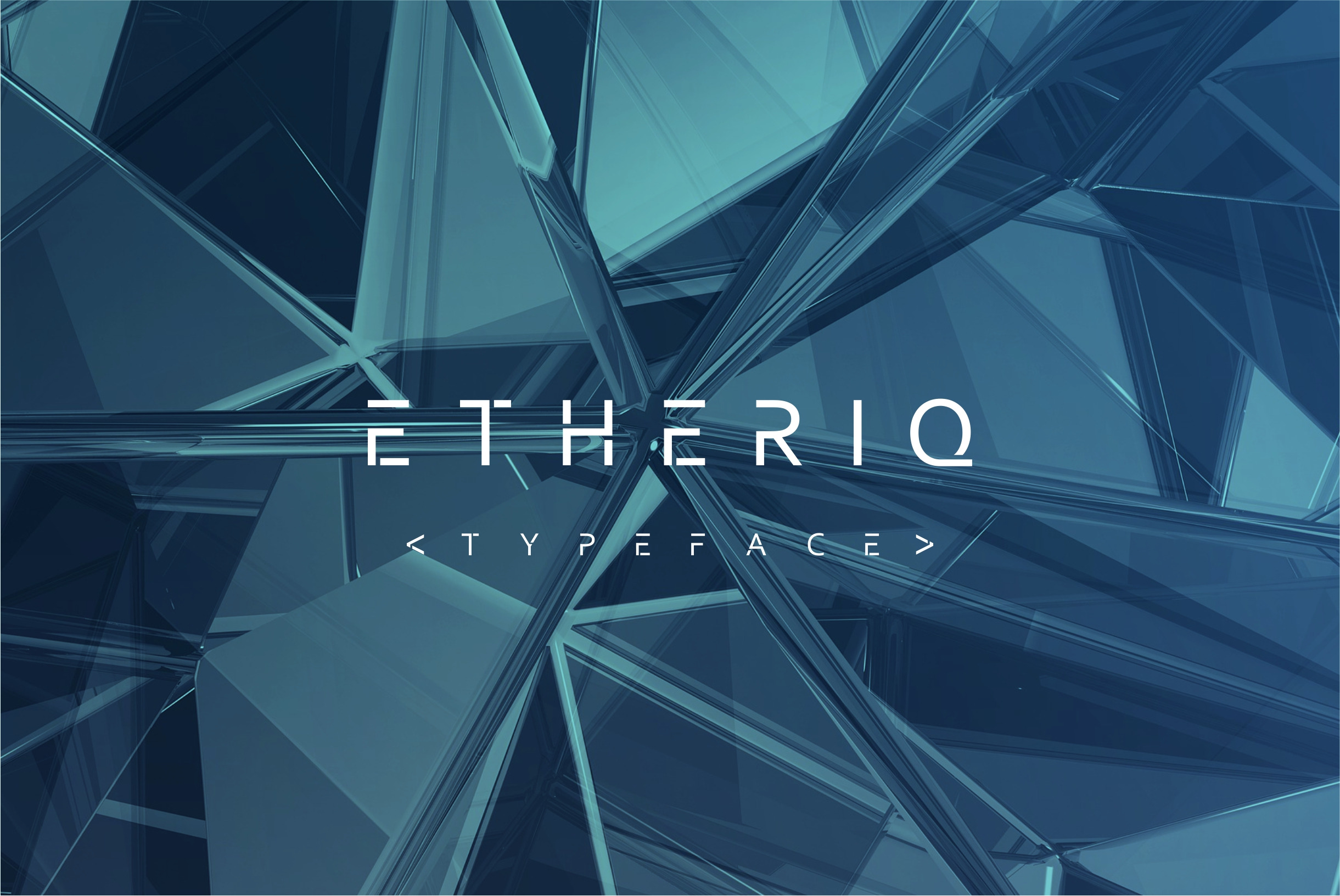
Etheriq Typeface
Etheriq is a minimal sans serif all caps display font. Available in medium normal and italic. This typeface is perfectly suit for many themes, from a sci-fi movie tittle to your hi-end fashion brand logo.